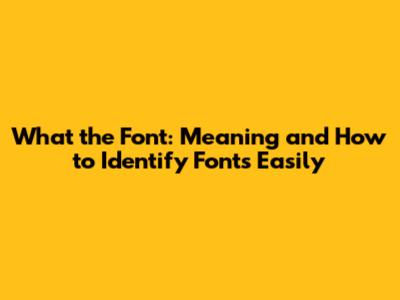
- Use a Clear Image: The better the image quality, the more accurate the results. Make sure the text is well-lit and in focus. Try to avoid blurry or distorted images, as these can make it difficult for font identification tools to analyze the font accurately. If possible, crop the image to focus solely on the text you want to identify, eliminating any unnecessary background elements that could interfere with the analysis. Additionally, ensure that the text is oriented correctly, as upside-down or sideways images may confuse the font identification tool. By providing a clear and well-focused image, you'll increase the likelihood of obtaining accurate and reliable font identification results.
- Isolate the Text: Crop the image so that only the text you want to identify is visible. This helps the identification tool focus on the relevant characters and avoid any confusion caused by surrounding elements. When cropping the image, be sure to leave enough space around the text to allow the tool to accurately recognize the characters. Avoid cropping too tightly, as this could cut off portions of the letters and hinder the identification process. Additionally, ensure that the text is aligned horizontally or vertically, as skewed text may also affect the accuracy of the results. By carefully isolating the text in your image, you'll improve the chances of obtaining a precise and reliable font identification.
- Specify Font Characteristics: If you know any specific details about the font, such as whether it has serifs or is a sans-serif font, provide that information to the identification tool. This can help narrow down the search and improve the accuracy of the results. Many font identification tools allow you to specify various font characteristics, such as the presence of serifs, the weight of the font, and the style of the letters. By providing these details, you can help the tool focus on fonts that match your criteria and eliminate those that don't. Additionally, if you know the name of a similar font, you can use this information to guide the search and find a closer match. The more information you provide about the font, the more likely you are to obtain an accurate and reliable identification. So, take the time to analyze the font's characteristics and provide as much detail as possible to the font identification tool.
Ever stumbled upon a cool-looking font and wondered what it is? Well, you're not alone! In the world of design, typography plays a huge role, and being able to identify fonts can be super handy. So, let's dive into what "What the Font" actually means and how you can easily figure out the name of that elusive typeface.
What is "What the Font"?
"What the Font" is basically the burning question designers (and font enthusiasts) ask when they spot an interesting font they can't quite place. It's that moment of curiosity that leads you on a quest to uncover the identity of a specific typeface. Typography is a crucial element in visual communication, influencing readability, aesthetics, and the overall message conveyed by text. Knowing what the font is allows designers to maintain consistency, replicate designs accurately, and explore new creative possibilities. The ability to recognize and identify fonts is a valuable skill that enhances design workflows and ensures brand integrity. When designers can quickly determine the font used in a particular design, they save time and effort in recreating or matching existing typography. Font identification also enables designers to analyze the characteristics of different typefaces, such as x-height, stroke contrast, and serifs, allowing them to make informed decisions about font selection. Ultimately, understanding what the font is empowers designers to create visually compelling and effective designs that align with their intended message and brand identity. So, the next time you find yourself wondering about a font, remember that seeking the answer to "What the Font" is a journey into the fascinating world of typography.
Why Identifying Fonts Matters
Identifying fonts is super important for a bunch of reasons. First off, if you're trying to match a certain look or style, knowing the font is key. Imagine you're updating a logo or creating marketing materials that need to align with existing branding. Without knowing the exact font, it's tough to maintain consistency. Secondly, identifying fonts can save you a ton of time. Instead of spending hours searching through endless font libraries, you can quickly pinpoint the one you need. Plus, it helps you discover new and interesting fonts that you might not have found otherwise. For designers, this is a game-changer, as it allows them to expand their typographic palette and explore different visual styles. Moreover, font identification is crucial for preserving brand integrity. When businesses use consistent fonts across all their materials, it reinforces their brand identity and creates a cohesive look. This consistency builds trust and recognition among customers, helping them to easily identify and connect with the brand. In addition, identifying fonts helps ensure that designs remain true to their original intent. Whether it's recreating a vintage poster or updating a classic book cover, knowing the original font allows designers to maintain the integrity of the design and honor its historical context. Ultimately, the ability to identify fonts is a valuable skill that enhances design workflows, preserves brand consistency, and opens up new creative possibilities.
Tools and Methods to Identify Fonts
Okay, so how do you actually figure out "What the Font?" There are several tools and methods available to help you out. Let's explore some of the most popular options:
Online Font Identification Tools
Online font identification tools are your best friends when it comes to quickly identifying fonts. These tools use advanced algorithms to analyze images of text and suggest potential matches from their extensive font libraries. One of the most well-known tools is, well, "WhatTheFont" by MyFonts. You simply upload an image of the text, and the tool identifies the characters and searches for similar fonts. Another great option is Font Squirrel's Font Identifier. It works similarly, allowing you to upload an image and get a list of potential matches. These tools often provide options to refine your search by specifying certain characteristics of the font, such as the presence of serifs or the thickness of the strokes. Using online font identification tools can save you a ton of time and effort compared to manually searching through font libraries. These tools are constantly updated with new fonts, ensuring that you have access to the latest and most accurate matches. In addition, many of these tools offer additional features, such as the ability to identify fonts from URLs or to analyze the font usage on a website. Whether you're a professional designer or just a casual font enthusiast, online font identification tools are an invaluable resource for uncovering the identities of your favorite typefaces. So, the next time you're stumped by a font, give one of these tools a try and see what you can discover.
Mobile Apps for Font Identification
For those moments when you're out and about, mobile apps for font identification can be a lifesaver. These apps allow you to snap a photo of text with your smartphone's camera, and they'll analyze the image to identify the font. "WhatTheFont" also has a mobile app that works seamlessly with your phone's camera. Simply point your camera at the text, and the app will identify the font in real-time. Another popular option is Adobe Capture, which not only identifies fonts but also captures colors, patterns, and shapes from your surroundings. These mobile apps are incredibly convenient for identifying fonts on the go, whether you're browsing through a magazine, admiring a storefront sign, or exploring a museum exhibit. They put the power of font identification right in your pocket, allowing you to satisfy your curiosity and expand your typographic knowledge wherever you are. Moreover, many of these apps offer additional features, such as the ability to save your identified fonts for later reference or to share them with colleagues and friends. Whether you're a designer, a student, or simply someone who appreciates good typography, mobile apps for font identification are a must-have tool for your smartphone. So, download one today and start exploring the world of fonts with ease and convenience.
Manual Font Identification
If you're feeling adventurous, you can also try manual font identification. This involves carefully examining the characteristics of the font and comparing them to font samples in font books or online databases. Start by looking at the distinctive features of the font, such as the shape of the serifs, the x-height, and the stroke contrast. Pay attention to any unique details that might help you narrow down your search. Next, consult font books or online resources like Fonts.com or MyFonts to compare the font's characteristics to known typefaces. You can also use online font identification guides that provide detailed descriptions and illustrations of different font features. Manual font identification can be a time-consuming process, but it can also be a rewarding way to deepen your understanding of typography. By closely examining the details of different fonts, you'll develop a keen eye for font recognition and gain a greater appreciation for the art of typeface design. Moreover, manual font identification can be a valuable skill for designers who need to match fonts in older designs or when online identification tools are not available. While it may require patience and attention to detail, manual font identification can ultimately enhance your typographic expertise and expand your creative capabilities. So, embrace the challenge and start honing your font detective skills today.
Tips for Accurate Font Identification
To make sure you get the most accurate results when identifying fonts, here are a few tips to keep in mind:
So, the next time you find yourself wondering "What the Font?", you'll be well-equipped to uncover its identity. Whether you use online tools, mobile apps, or manual identification techniques, the world of typography is now at your fingertips. Happy font hunting, guys! Remember that identifying fonts is not just about finding the name of a typeface; it's about understanding the nuances of typography and appreciating the art of visual communication. By honing your font identification skills, you'll not only enhance your design capabilities but also deepen your appreciation for the role that fonts play in shaping our visual world. So, embrace the challenge, explore different fonts, and let your curiosity guide you on a journey of typographic discovery. With the tools and techniques outlined in this article, you'll be well-prepared to unravel the mysteries of any font you encounter and elevate your design work to new heights. So, go forth and conquer the world of fonts with confidence and enthusiasm!